Albion conquers worlds with Alverata
Alverata, Gerard Unger’s eclectic interpretation of the Romanesque style, was chosen for Albion Online, a medieval-based online game with millions of users.
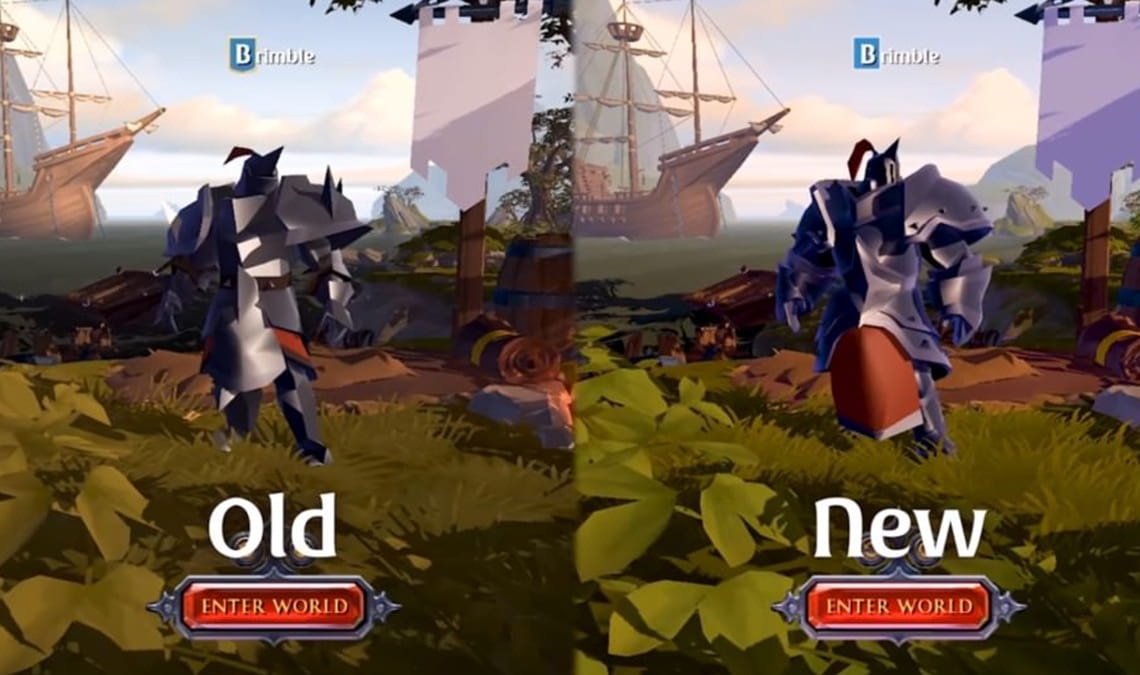
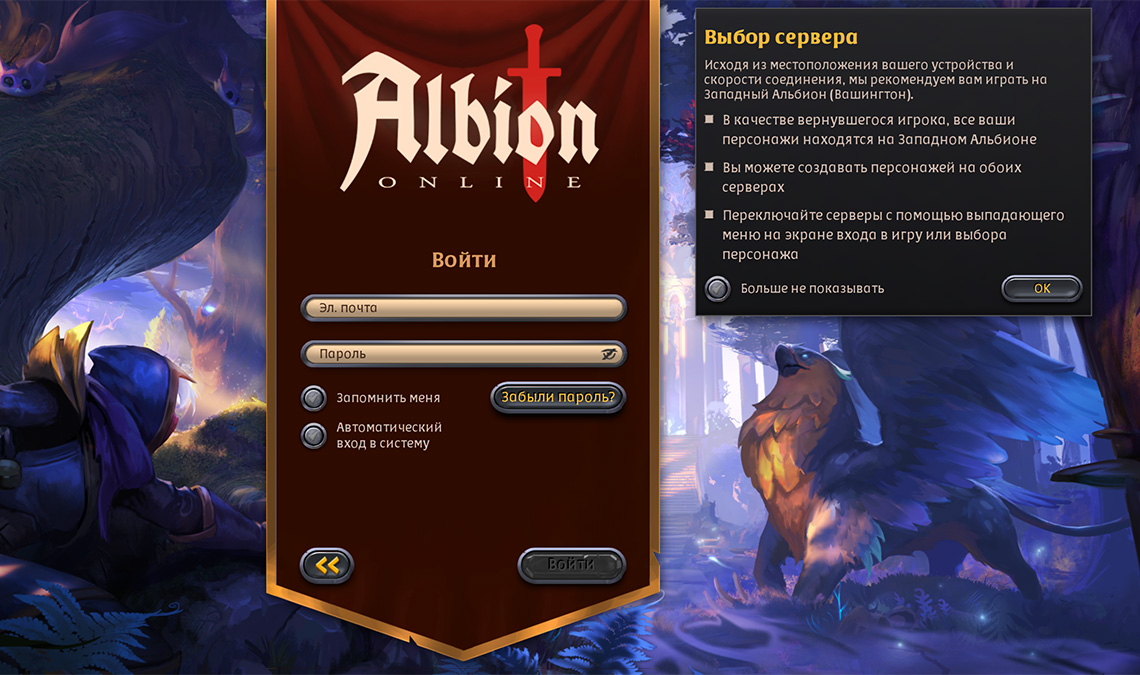
Albion Online (AO) is a free medieval fantasy MMORPG developed by Sandbox Interactive, a studio based in Berlin, Germany. Set in a Middle Ages, Albion Online is based on the Arthurian legends, with militaristic strategy aspects to it. Albion Online has been translated into 11 languages and has over five million registered users.
The game’s initial launch was in July 2017, quickly followed by a Steam release in 2018. In April 2019, the game went free-to-play, expanding its community to include hundreds of thousands of new players worldwide. Then in June 2021, Albion Online officially launched for iOS and Android devices, bringing a massive influx of new players and fulfilling one of the game’s foremost goals: to become the world’s first truly cross-platform MMORPG.
The game uses the Irregular style of Gerard Unger’s Alverata, Cyrillic and Latin, a contemporary and eclectic font family inspired by type from medieval Europe. Alverata is Dr Gerard Unger’s resolutely modern typeface inspired by his doctoral research on Romanesque type in 11th and 12th century Europe, so it is an appropriate fit for the time frame, the location, and the tone of play.
Alverata’s Irregular style is where real distinction lies because it’s made for scenarios where combining uniqueness with eclectic historical reference is the primary goal. As a general rule, curved shapes prevail in the conventional Latin lowercase, while straight lines and angles dominate in the uppercase. But Alverata Irregular swaps these characteristics —  straight lines become curved and curves become straight — experimenting with the characters themselves rather than increasing their weight or creating an accompanying sans.
Gaming can take us out of life’s tedium and encourage adventure without threat. It offers both escape and intentionality with low stakes, but may open our mind to the possibility of taking on true adventures in the real world. The fantasy world of searching, building, completing tasks, and proving oneself can be a primer for calculated risk and the joy that may result. And this is also the story of Alverata — inspired by the real world, infused with fantastical and unexpected shapes, placed in a fantasy world to set the tone, and pointing back to what is true.